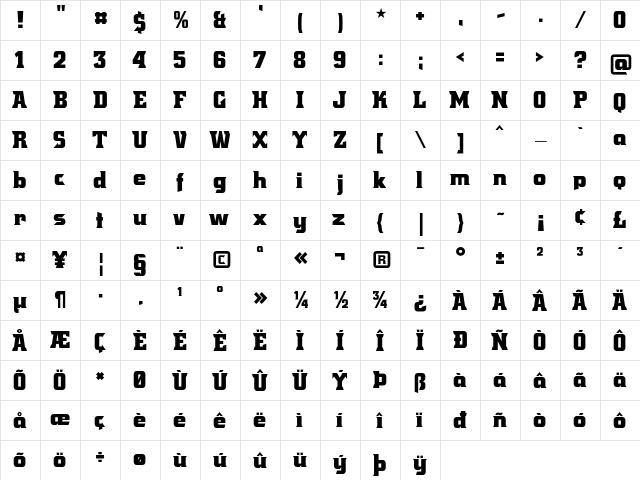
Crayfish AS Titan Bold
Design Context for Crayfish AS Typeface
Crayfish AS is a composed and adaptable typeface that performs quietly and consistently across a wide range of design contexts. The heavy weight commands attention and anchors typographic hierarchies.